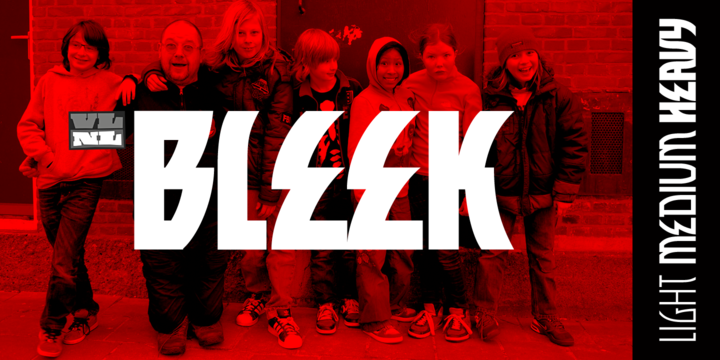
VLNL Bleek started its life as a logo for a rock band with the same name. This makes sense as it has distinct roots in classic rock logo design. Any rock band name set in Bleek looks instantly cool – profi logo quality! Of coarse Bleek will serve an awesome purpose as a headline font as well. Or gig flyers and posters. Or band backdrops. Just turn it up to 11!
DBXL expanded the original logo into the full Heavy weight and added Light and Medium cuts. VLNL Bleek is an all caps font with uppercase and lowercase variations for maximum effect. It has a number of Open type features, like and alternate F, mirrored A and O and a TT ligature to spice up your designs. VetteLetters says: Rock on!